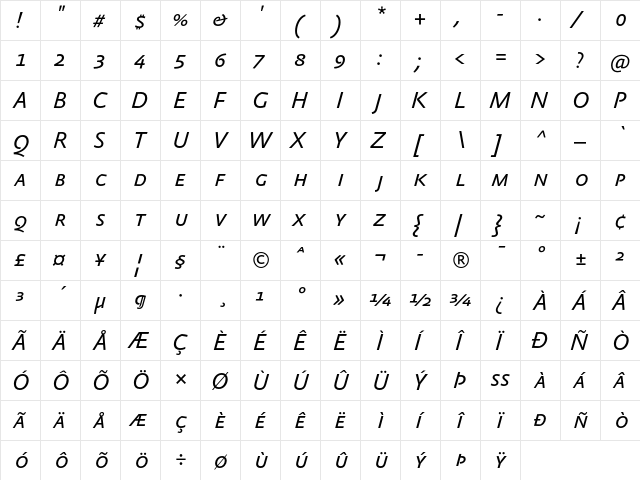
AbsaraSansTF-RegularItalicSC Regular
Design Context for AbsaraSansTF-RegularItalicSC Typeface
AbsaraSansTF-RegularItalicSC is a composed and adaptable typeface that performs quietly and consistently across a wide range of design contexts. The slanted form adds forward momentum and visual energy.
Pro Tip: Use AbsaraSansTF-RegularItalicSC for emphasis, pull quotes, and subheadings where its slanted energy can add rhythm to the layout.